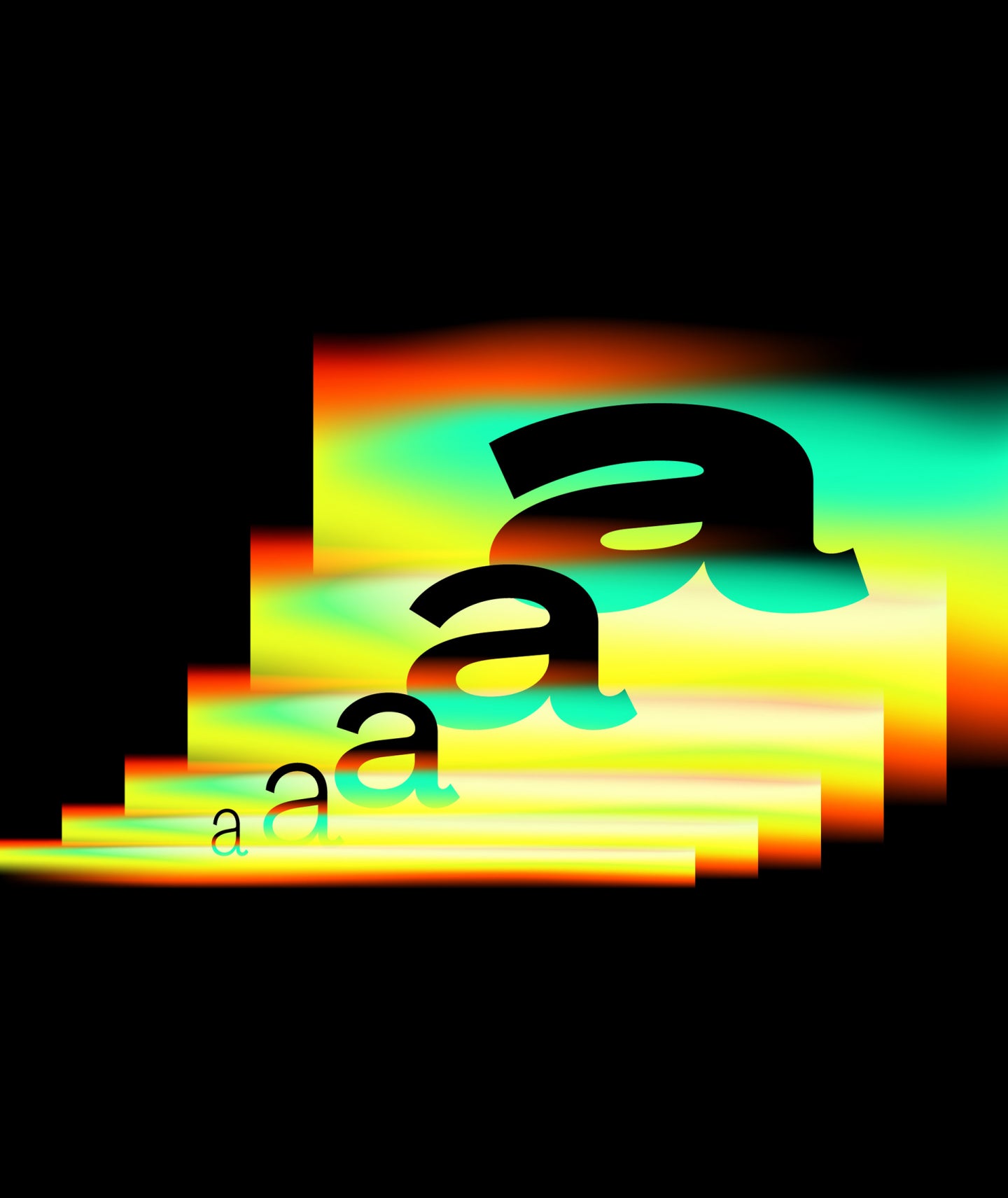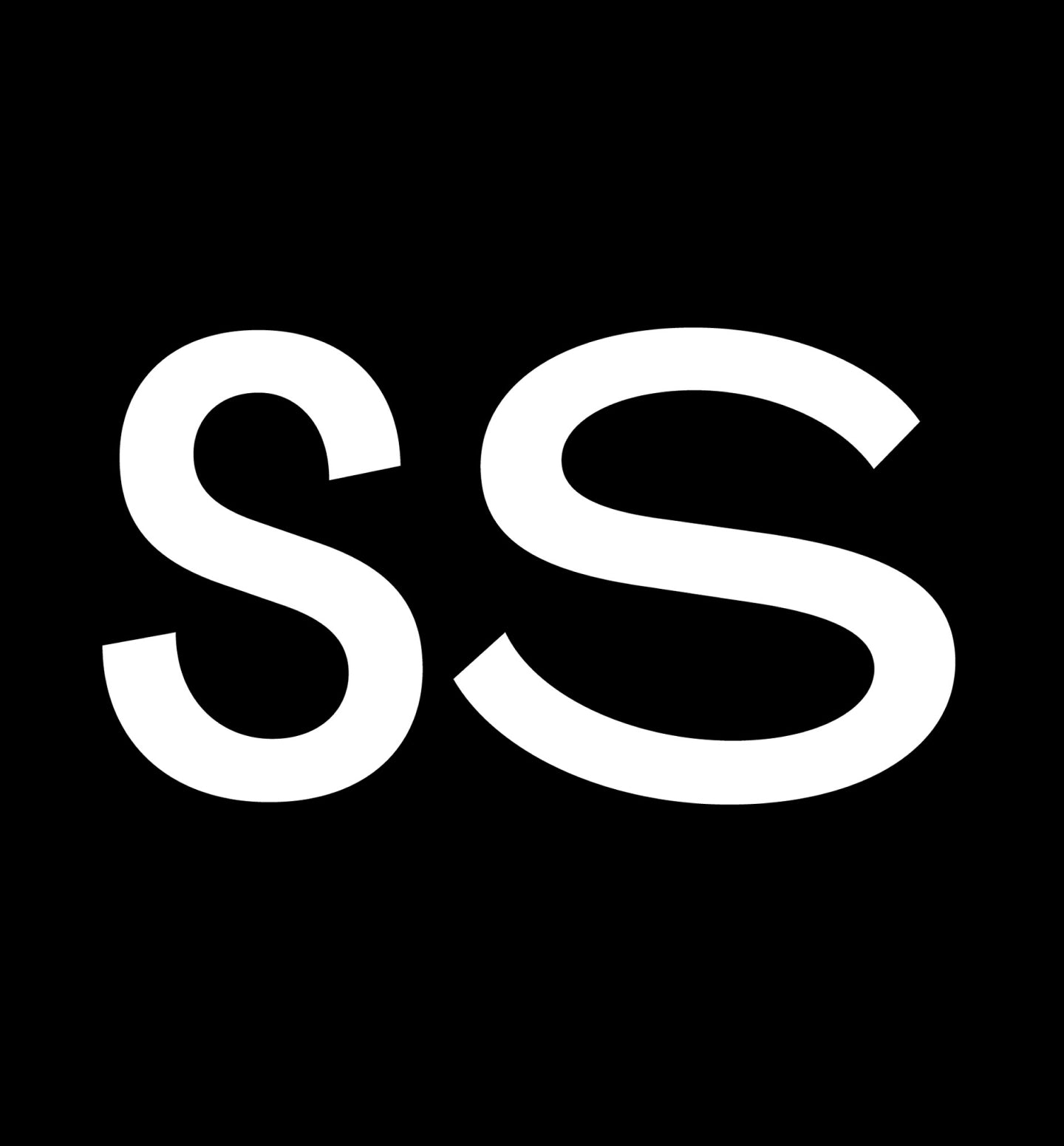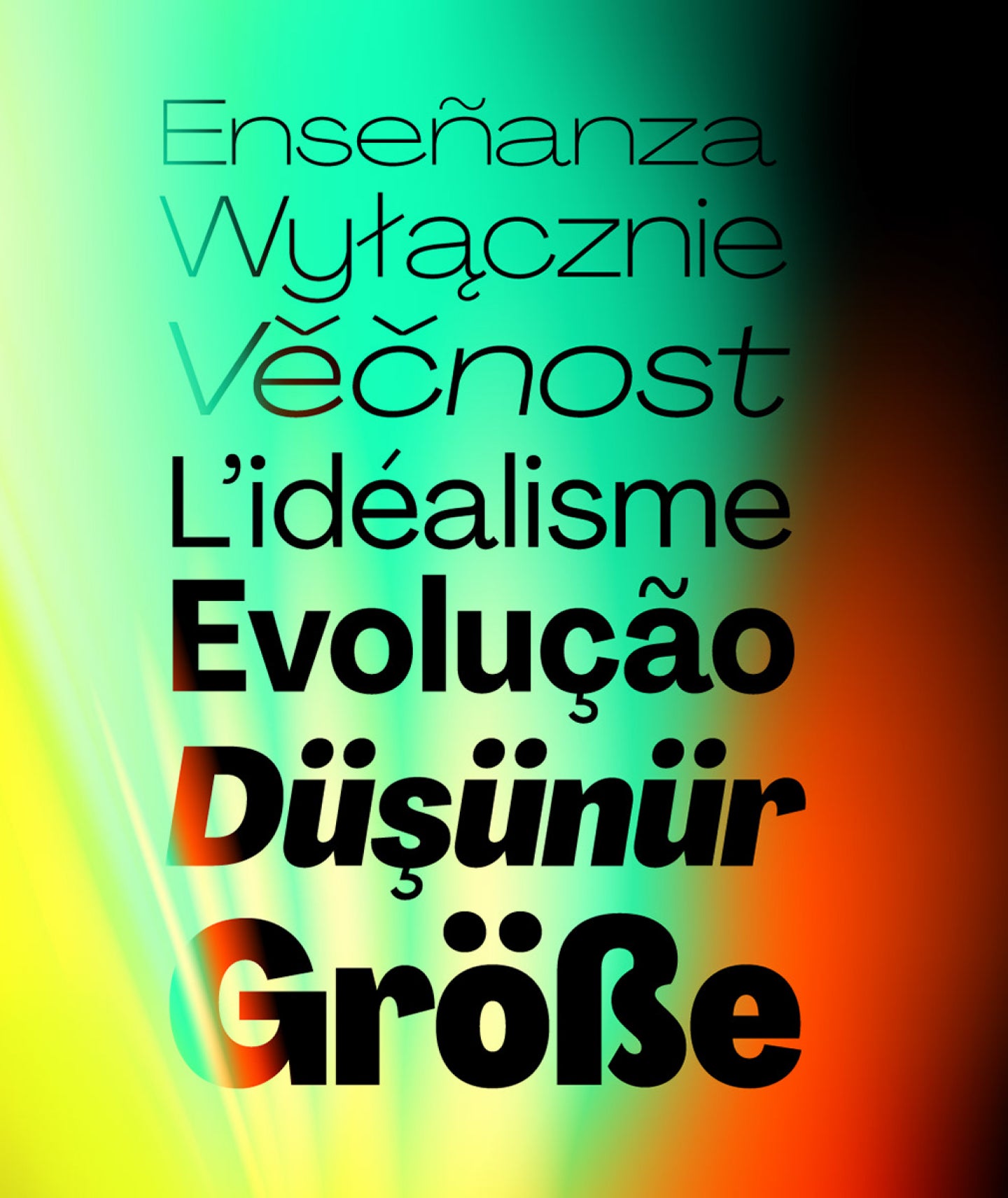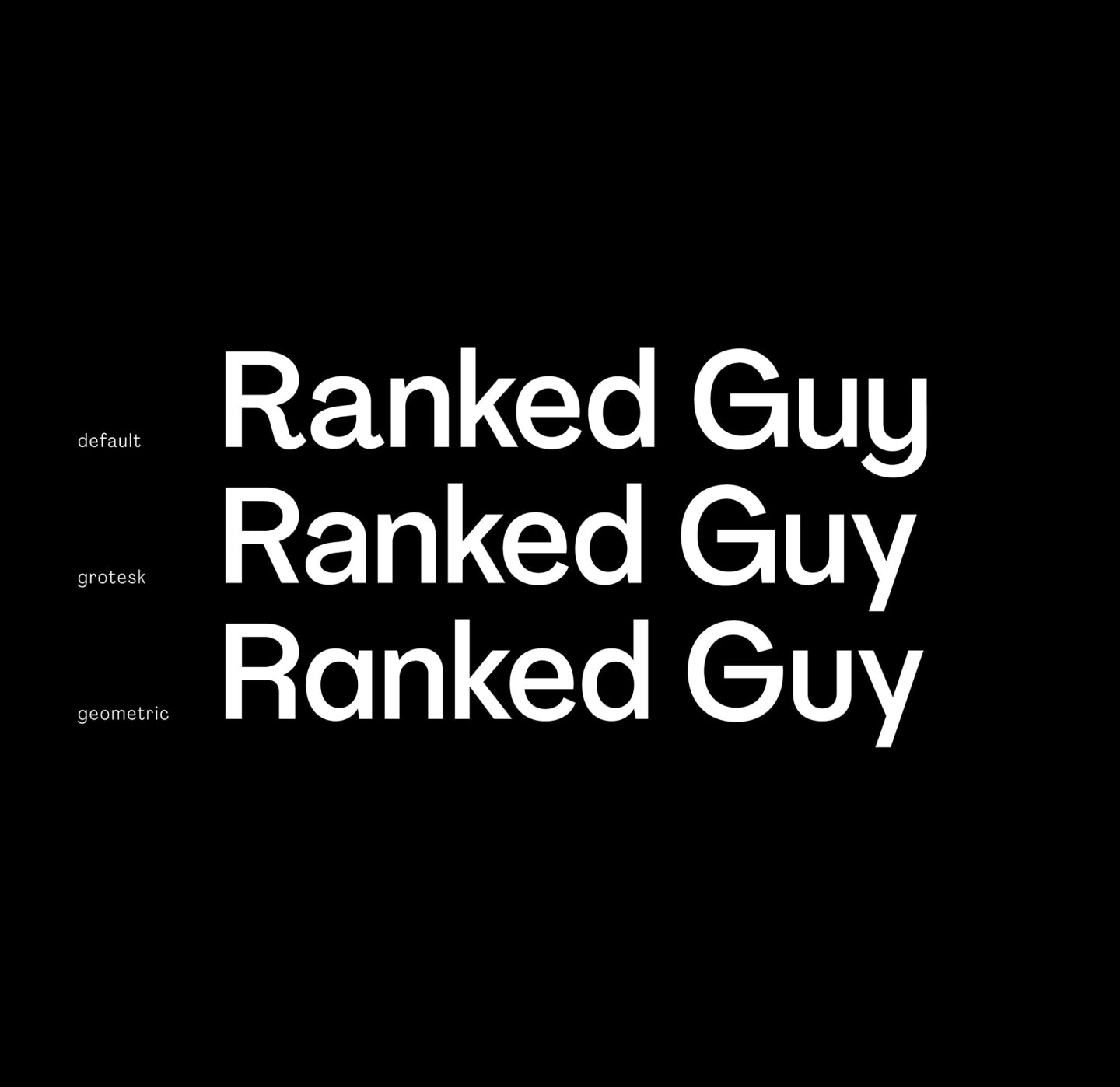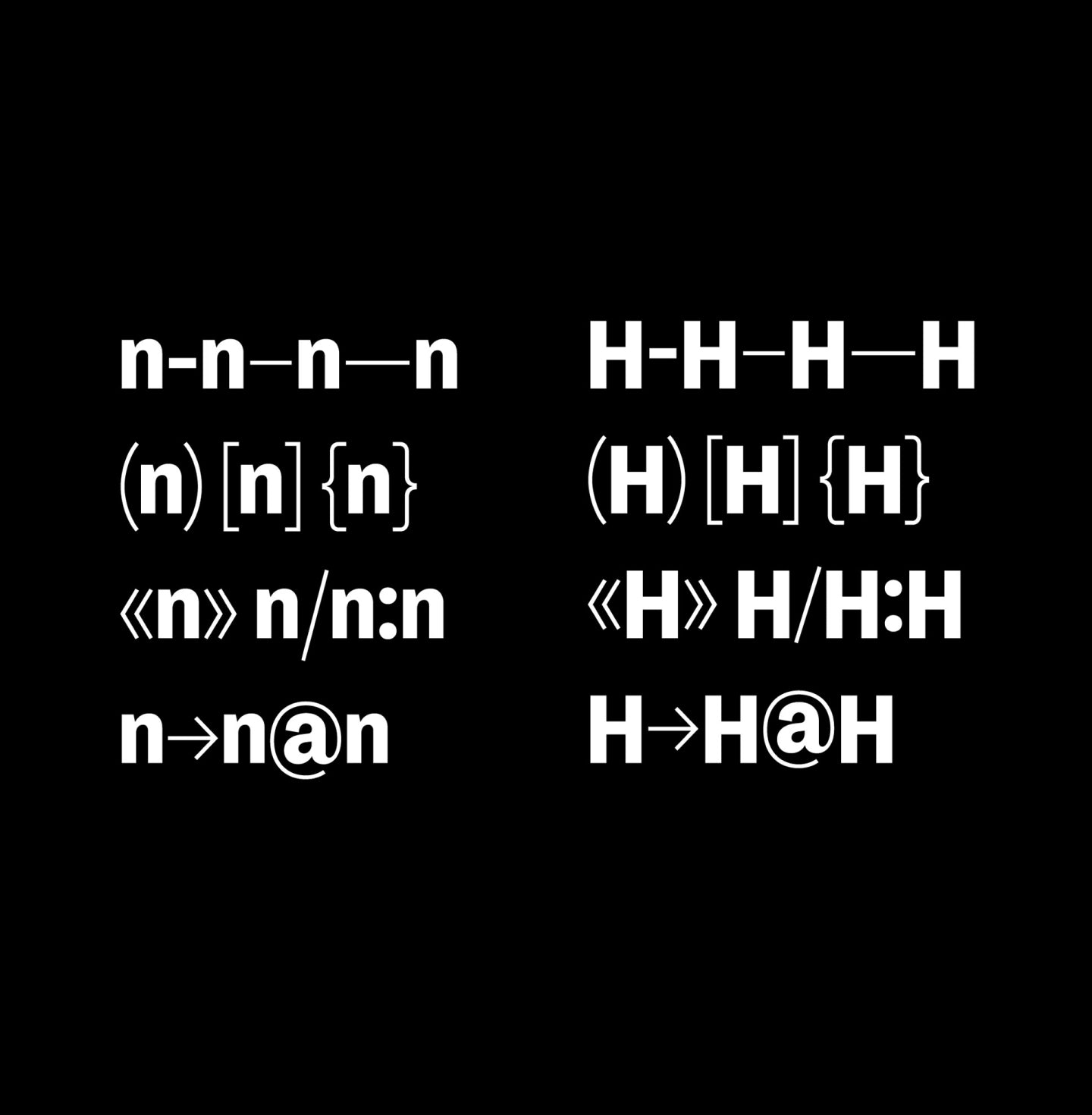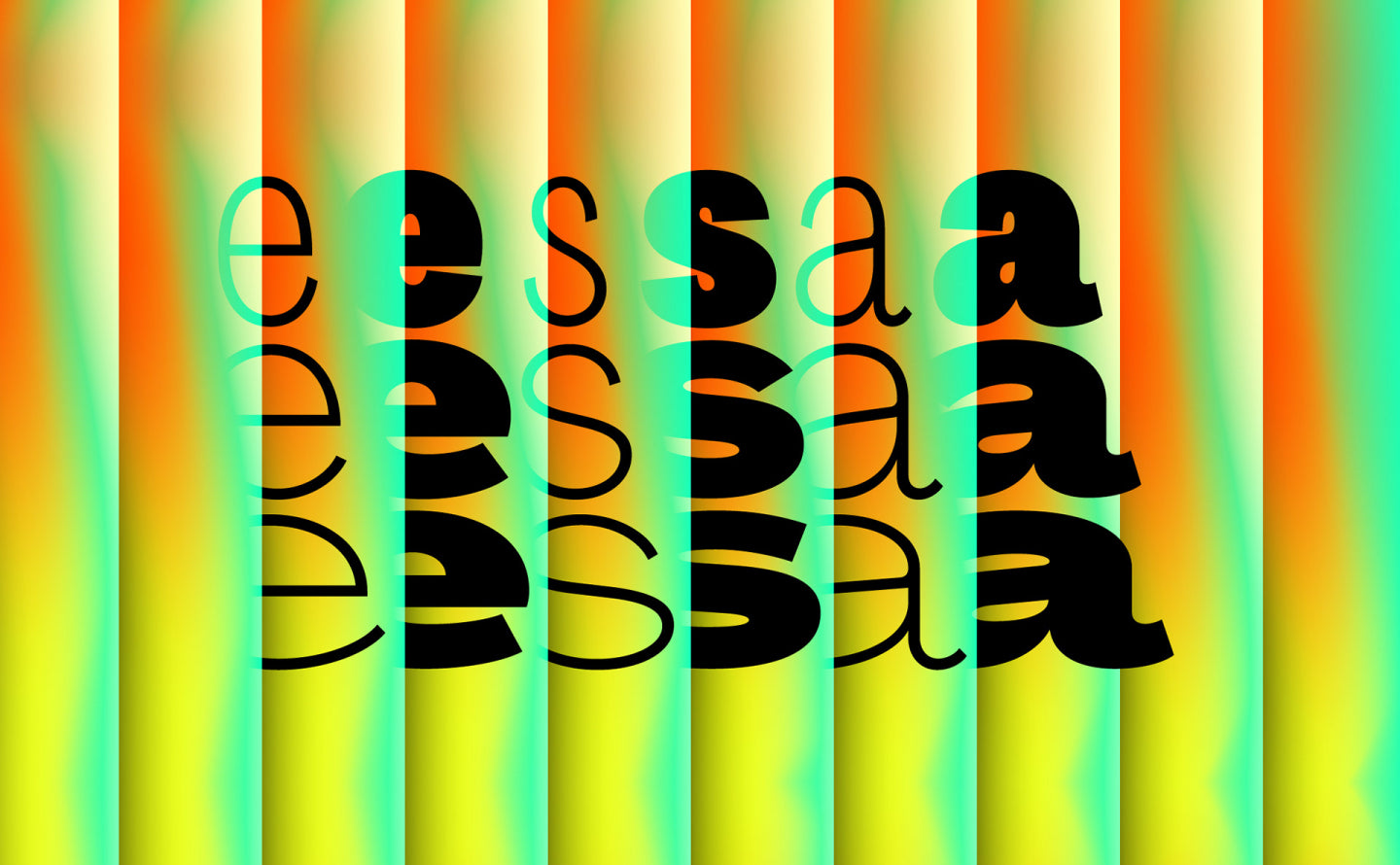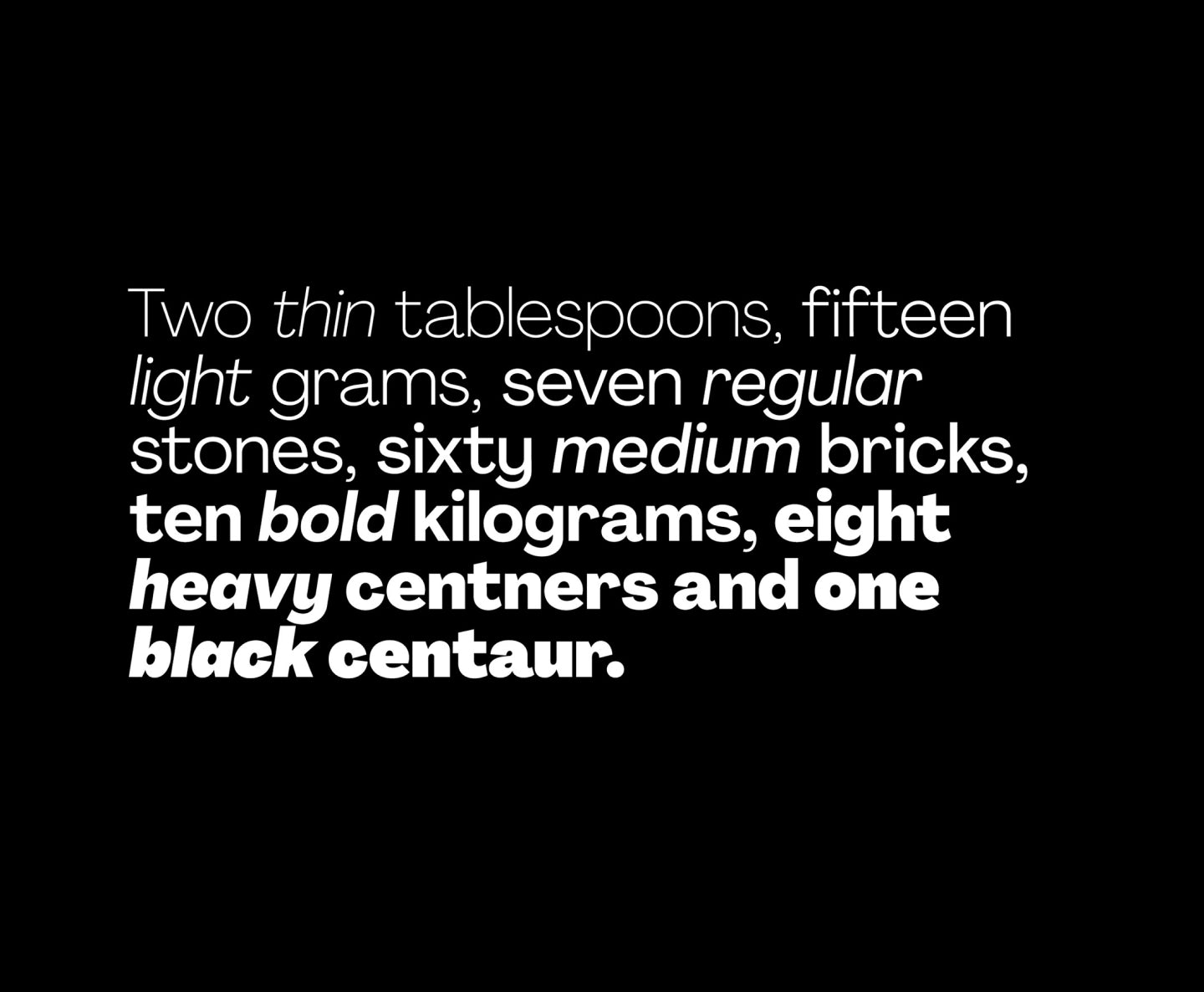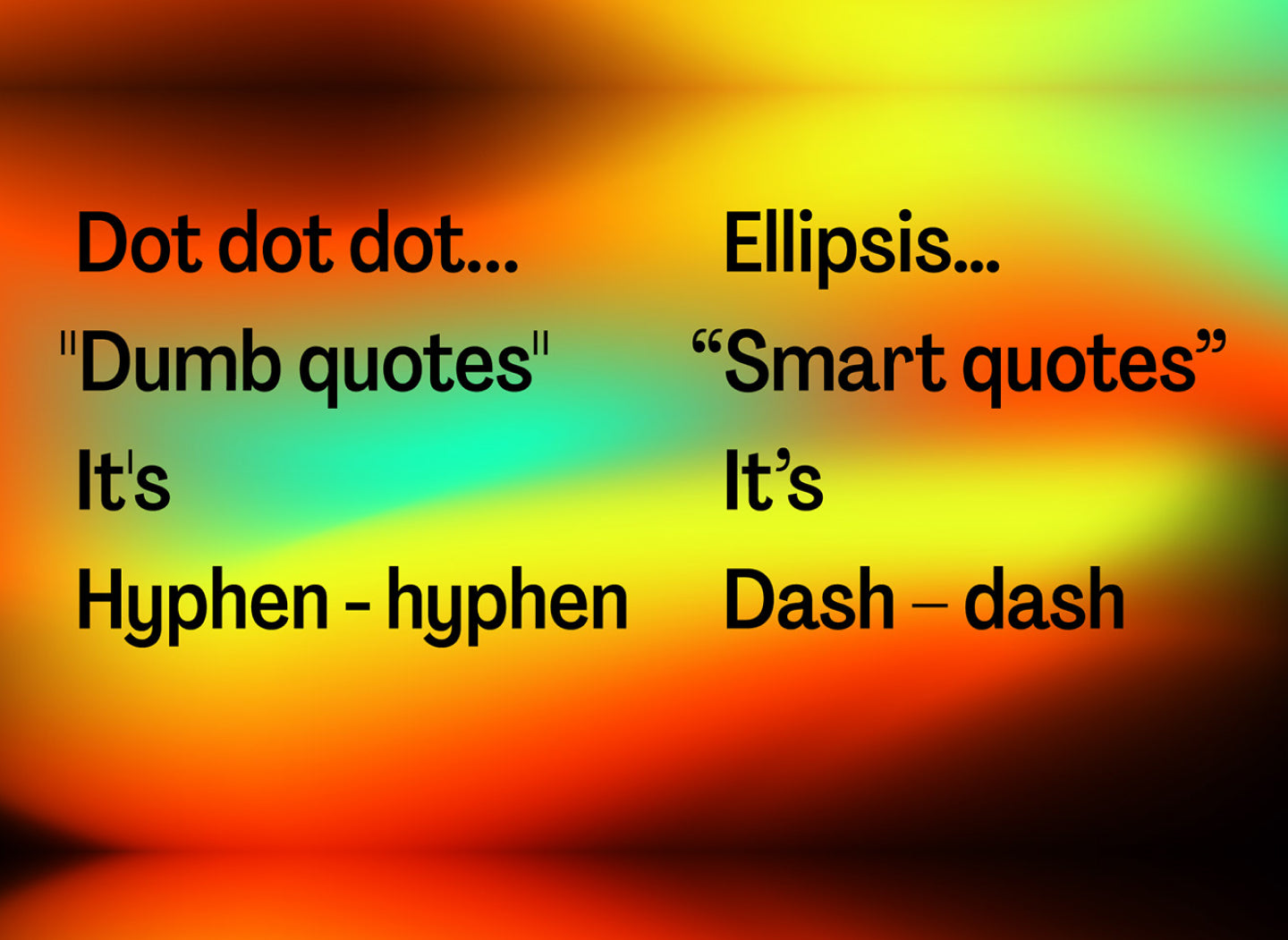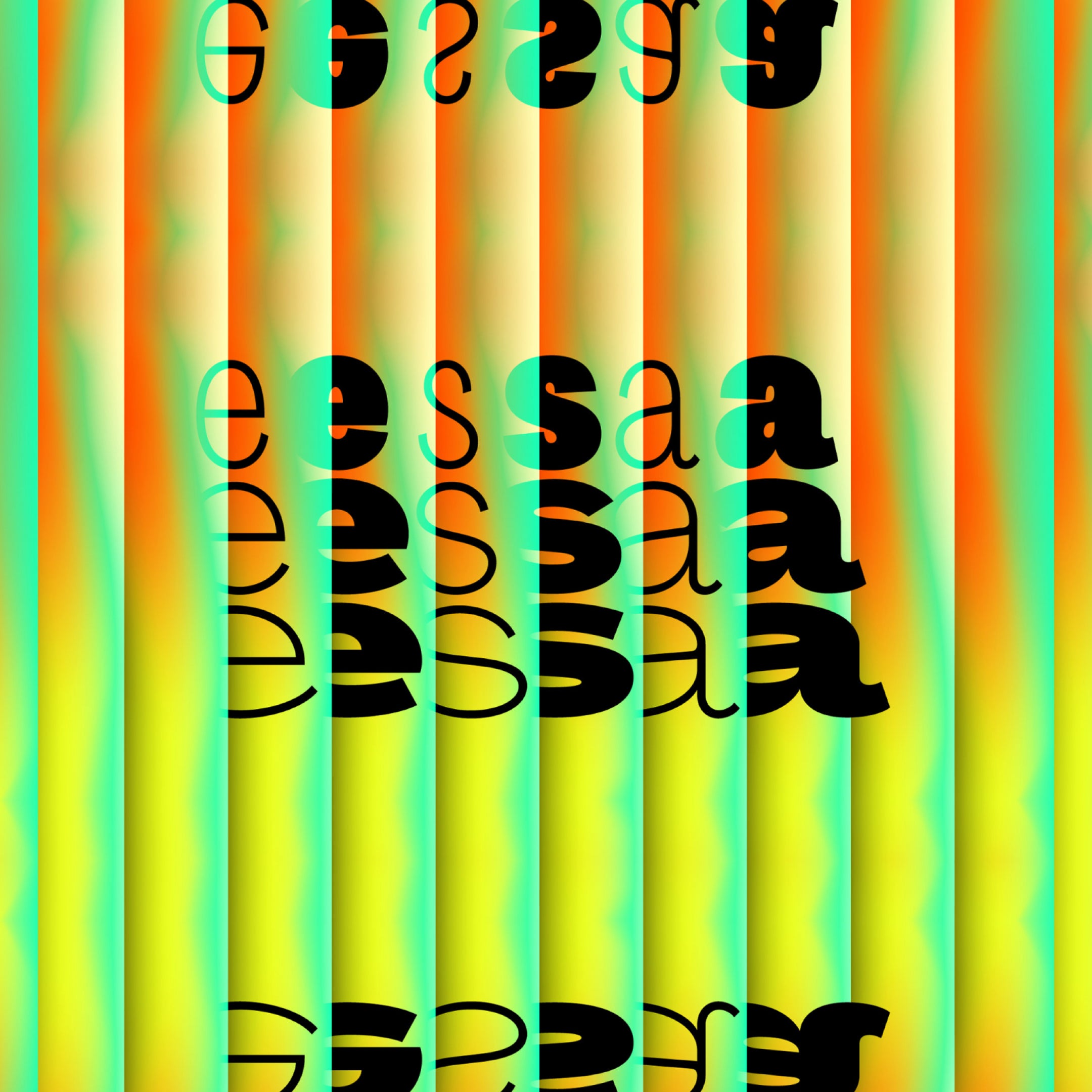
Agrandir Narrow
Perfectly imperfect.
Agrandir Narrow
Built for humans, not machines. This font has feelings.
Agrandir Narrow
Agrandir is a contemporary serifless type family that flips modernist neutrality on its head. Where others chase clean grids and mechanical symmetry, Agrandir embraces the offbeat, the funky, the beautifully human. It's not about precision, it’s about personality.
Agrandir Narrow
Designed as an intentional departure from the rigid modernist grotesks, Agrandir leans into its quirks. Letters are unaligned, proportions are playful, and the rhythm isn’t robotic—it’s organic. It’s a typeface that breathes, flexes, and bends the rules without ever breaking the message. Agrandir doesn’t try to fit in—it thrives in standing out. With a massive family of 74 fonts (7 weights × 5 widths × italics + 4 dedicated Text styles), or just one beautifully efficient 3-axis variable font, it’s ready to morph to fit whatever design energy you’re working with—bold, soft, chaotic, or clean. Need even more flavor? Agrandir features a set of OpenType stylistic alternatives that can completely shift the tone of your type: Default for that lovable in-betweenness, Grotesk for a bit more order and Geometric for structure with a smile. Its ultra-tight spacing and wide stylistic range make Agrandir ideal for posters, headlines, logos, websites, and bold identities, while the Text styles bring the same offbeat charm into longer-form content—finally, a readable typeface that doesn’t feel like it came from a factory. Agrandir is for designers who like their fonts with flavor, not filler. For those who prefer grit to gloss. For those who see the beauty in a curve that’s just a little off—and love it even more because of it.
Agrandir Narrow's Features
Geometric Set
Grotesk Set
Alternate a
Single storey a
Alternate y
Alternate u
Alternate G
Alternate K
Straight Tail R
Perfectly imperfect.
Agrandir is a contemporary serifless type family that celebrates the beauty of being imperfect. It was designed to be a brave antipode to neutral modernist fonts. Agrandir accepts its own shapes as they are – unaligned, quirky and funky. It celebrates humanity, not machines.
The type family consist of 74 fonts: 7 weights × 5 widths × Italics + 4 Text styles. Or just one 3-axes variable font. Agrandir features a fairly good number of OpenType stylistic alternatives, which can be turned on for individual letters or as overall presets – Default, Grotesk and Geometric. With its wide variety of flavors and super tight spacing Agrandir is gonna do a good job for big size headlines, websites, logos and posters, and its new text styles are great for body copy.
14 Weigths with 443 Glyphs each
Including Italic Support